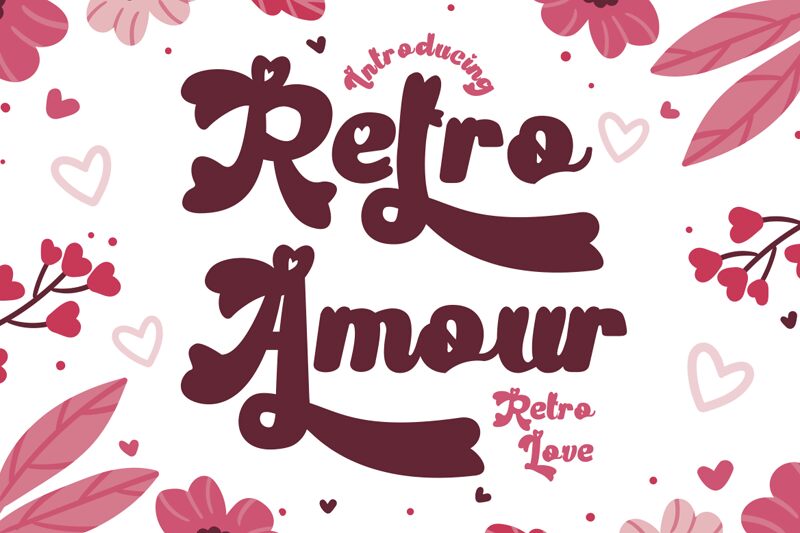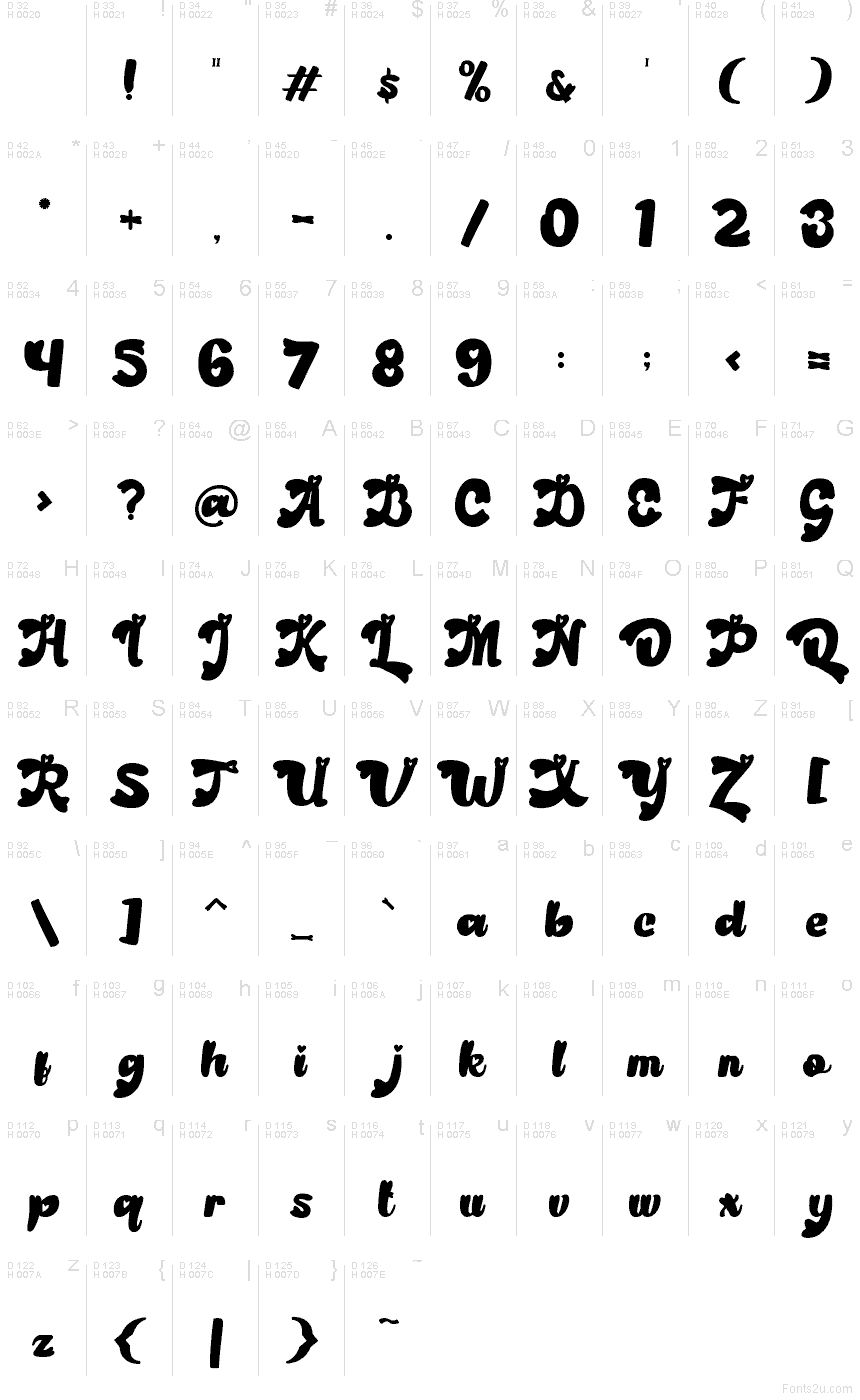
Retro Amour
Retro Amour font by PutraCetol Studio is a free romantic holiday script typeface with a plump, inky feel and bold retro charm. Its curls, chunky strokes, and heart-tipped details make every word look like it’s been written in whipped cream or chocolate, giving love notes and greetings a warm, handmade energy.
Using Retro Amour, your Valentine cards, wedding signage, party invitations, gift tags, social posts, and sweet packaging quickly take on a fun, lovestruck personality. This free font shines at larger sizes where its playful curves can breathe; pair it with a clean geometric sans serif for body text to keep your layouts sweet but balanced.